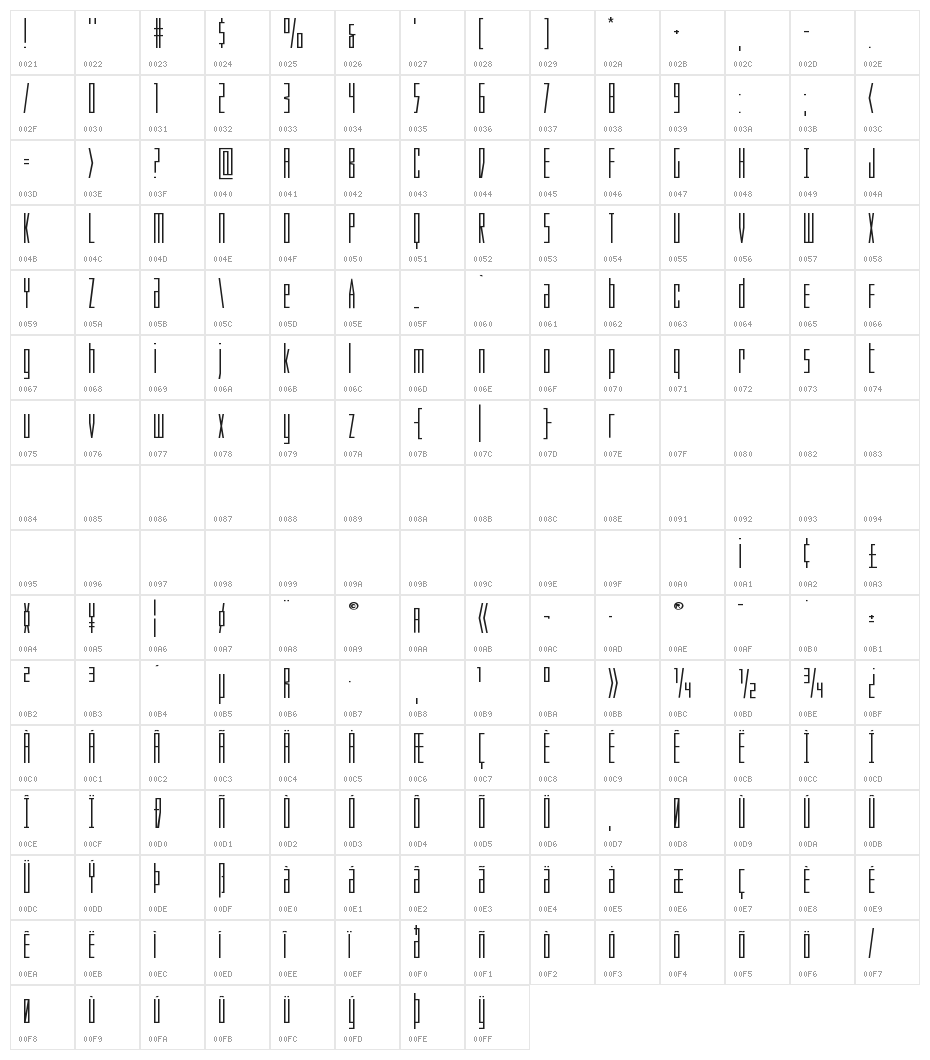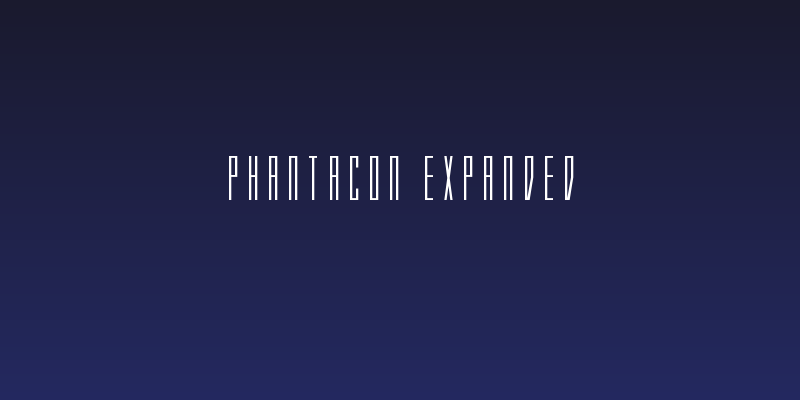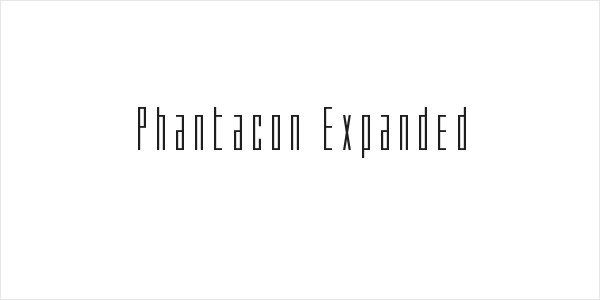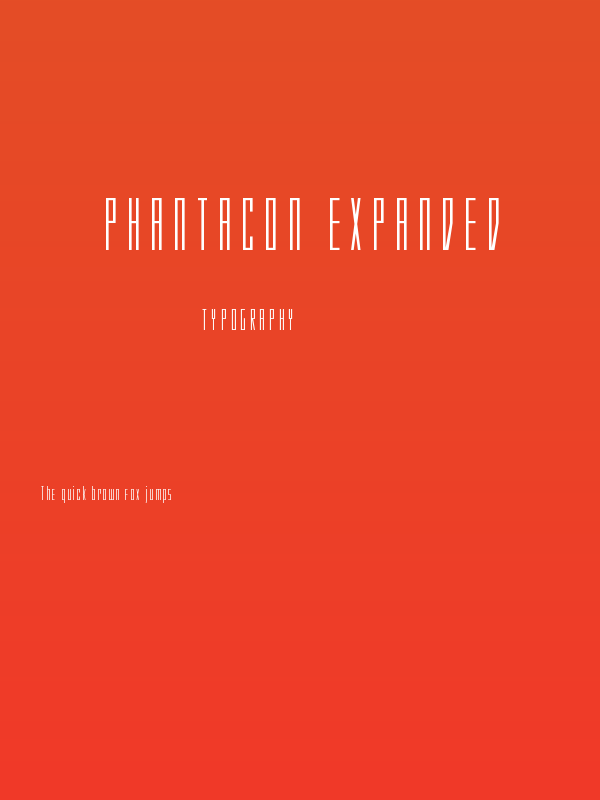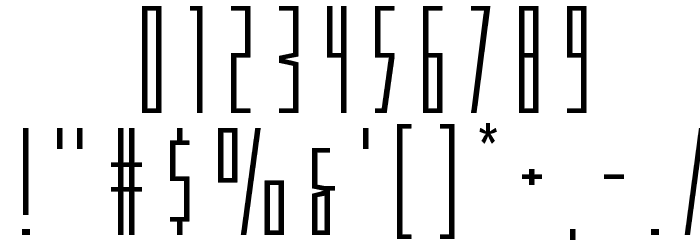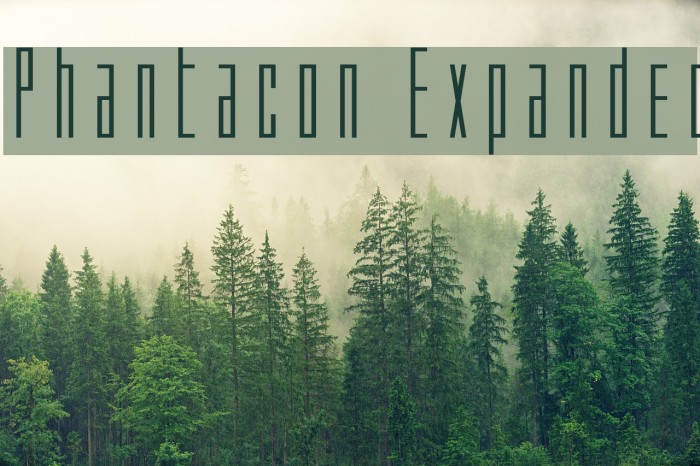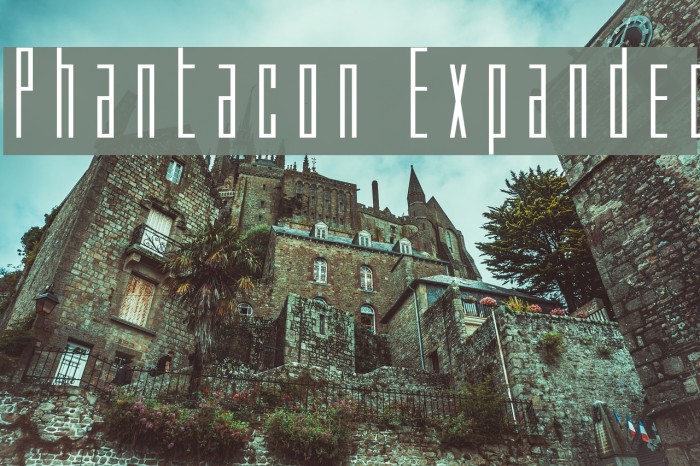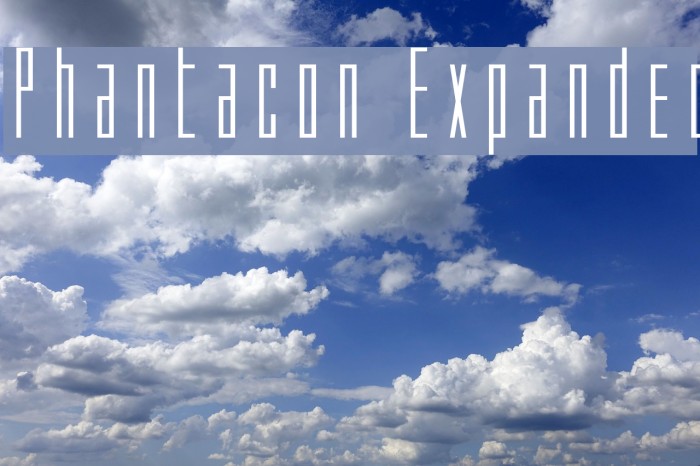
Phantacon Expanded Font
Phantacon Expanded Description
This font features an expanded and geometric design, characterized by tall, narrow letters with a modern and futuristic aesthetic. The characters are uniform in width, creating a clean and structured appearance. The uppercase and lowercase letters maintain a consistent height, while the numerals and special characters align seamlessly with the overall style. The font's sharp angles and straight lines contribute to its distinctive look, making it suitable for projects that require a contemporary and edgy feel.
| Overall Style | Futuristic, Geometric |
| Proposed Projects | Ideal for branding, posters, sci-fi themed designs, and digital interfaces. |